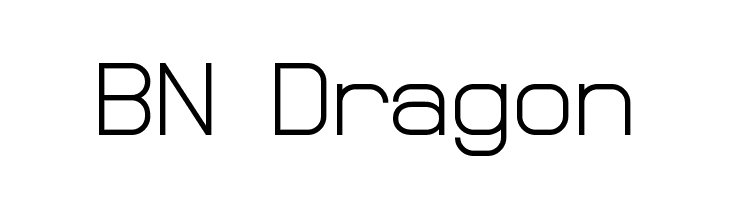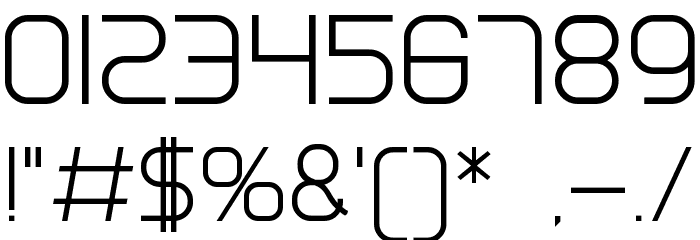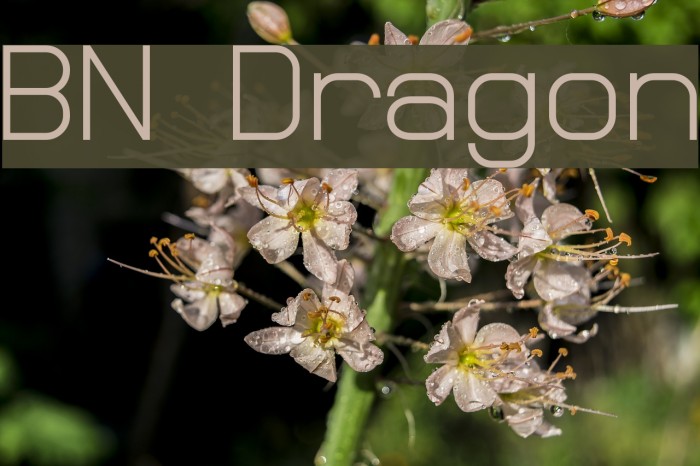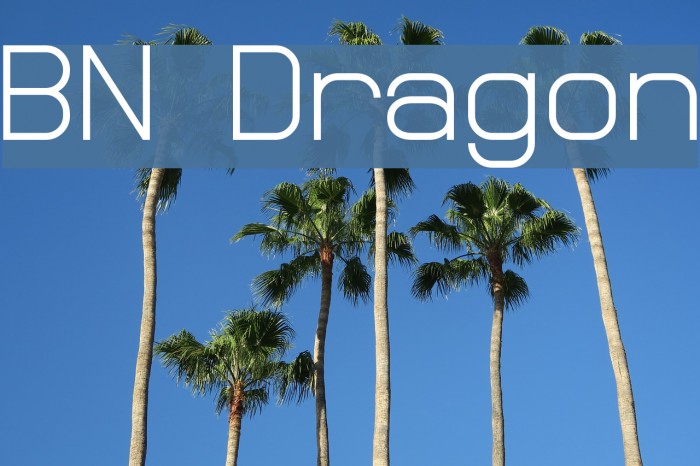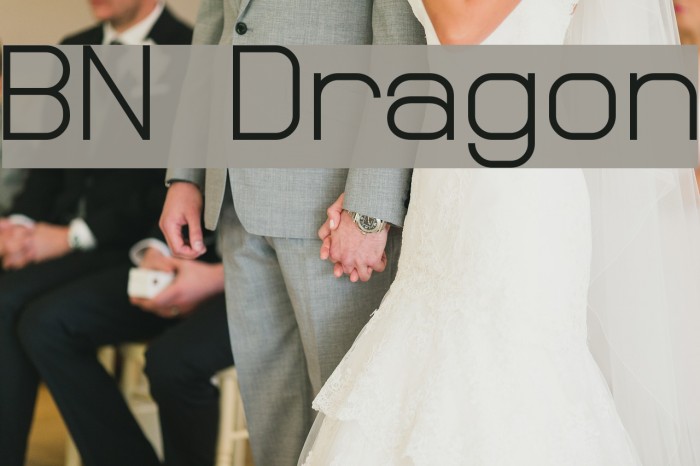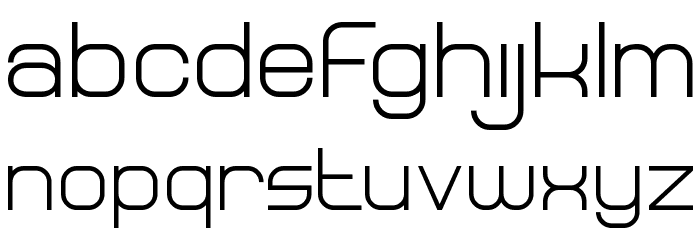
BN Dragon Font
BN Dragon Description
This font features a modern, geometric design with clean lines and a minimalist aesthetic. The characters are constructed with uniform stroke widths, giving it a sleek and contemporary appearance. The uppercase letters are bold and structured, while the lowercase letters maintain a consistent style, offering a harmonious balance. The numerals are clear and legible, with a similar geometric style. Special characters are designed to complement the overall look, making this font versatile for various applications. Its simplicity and clarity make it suitable for digital and print media.
A modern, geometric font with clean lines and a minimalist style from Futuristic fonts.
- Proposed Projects: Ideal for tech branding, digital interfaces, modern advertising, and minimalist design projects.
- Use Case: Headlines, Logos, Digital interfaces